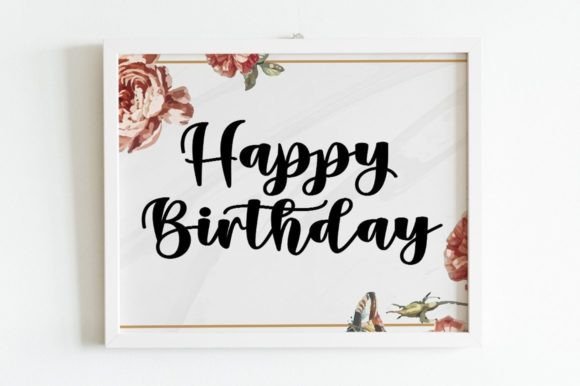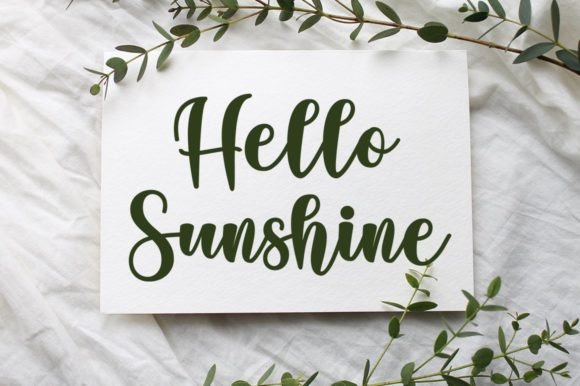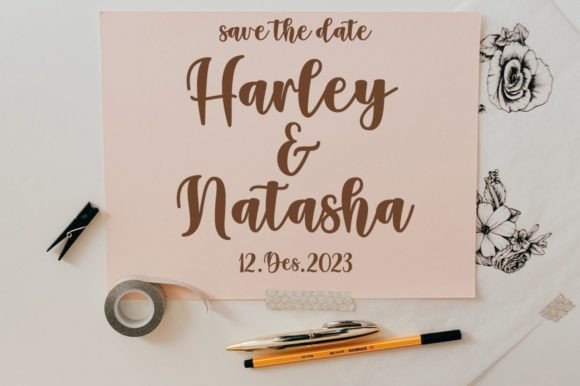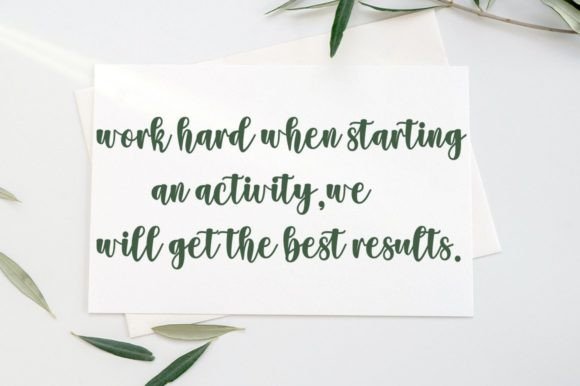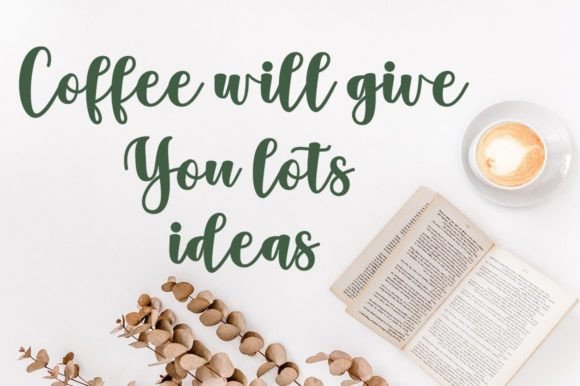
Cute Girl Font: The Perfect Addition to Your Design Arsenal
Are you a designer or crafter looking for a unique and eye-catching font to elevate your creative projects? Look no further than the Cute Girl Font, a beautiful handcrafted calligraphy-style script font that’s sure to capture the hearts of your audience. In this article, we’ll dive into the features and benefits of this lovely font, and explore how it can be used to add a touch of whimsy and charm to your designs.
What is Cute Girl Font?
Cute Girl Font is a stunning script font that’s been carefully crafted to bring a touch of elegance and playfulness to your designs. With its decorative characters and dancing baselines, this font is perfect for creating invitations, greeting cards, branding materials, business cards, quotes, posters, and more. Whether you’re a seasoned designer or a crafty DIY enthusiast, Cute Girl Font is sure to inspire your creativity and help you create something truly special.
Key Features of Cute Girl Font
- Handcrafted calligraphy-style script font: Cute Girl Font is a unique and authentic script font that’s been carefully handcrafted to bring a touch of personality to your designs.
- Decorative characters and dancing baselines: The font features beautiful decorative characters and dancing baselines that add a touch of whimsy and charm to your text.
- PUA encoded: Cute Girl Font is PUA encoded, which means you can access all of the amazing glyphs and ligatures with ease. This makes it simple to use the font in your designs and ensures that you can get the most out of its features.
- Perfect for a variety of design projects: Whether you’re creating invitations, greeting cards, branding materials, business cards, quotes, posters, or more, Cute Girl Font is the perfect choice.
Benefits of Using Cute Girl Font
So why choose Cute Girl Font for your design projects? Here are just a few benefits of using this lovely font:
- Adds a touch of personality to your designs: Cute Girl Font is a unique and eye-catching font that’s sure to help your designs stand out from the crowd.
- Easy to use: The font is PUA encoded, making it simple to access all of its features and glyphs.
- Versatile: Cute Girl Font can be used for a wide range of design projects, from invitations and greeting cards to branding materials and posters.
- High-quality: The font is carefully crafted to ensure that it’s of the highest quality, with beautiful decorative characters and dancing baselines.
How to Use Cute Girl Font in Your Designs
Using Cute Girl Font in your designs is easy. Here are a few tips to get you started:
- Pair it with other fonts: Cute Girl Font looks great when paired with other fonts, such as sans-serif fonts or bold script fonts.
- Experiment with different colors: The font looks great in a variety of colors, from bright and bold to soft and pastel.
- Use it for headings and titles: Cute Girl Font is perfect for headings and titles, where its decorative characters and dancing baselines can really shine.
- Add it to your branding materials: The font is a great choice for branding materials, such as business cards and brochures, where it can help to add a touch of personality to your brand.
In conclusion, Cute Girl Font is a beautiful and versatile script font that’s perfect for designers and crafters looking to add a touch of whimsy and charm to their designs. With its decorative characters and dancing baselines, PUA encoding, and ease of use, this font is sure to become a staple in your design arsenal. So why wait? Download Cute Girl Font today and start creating something truly special!